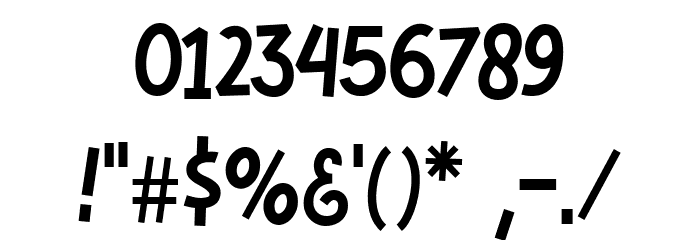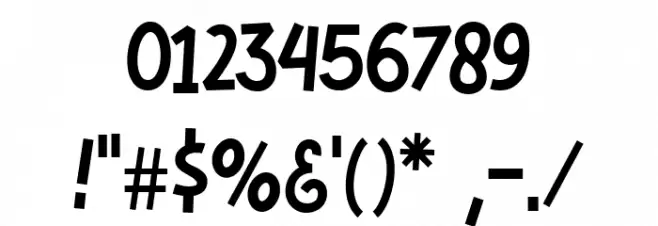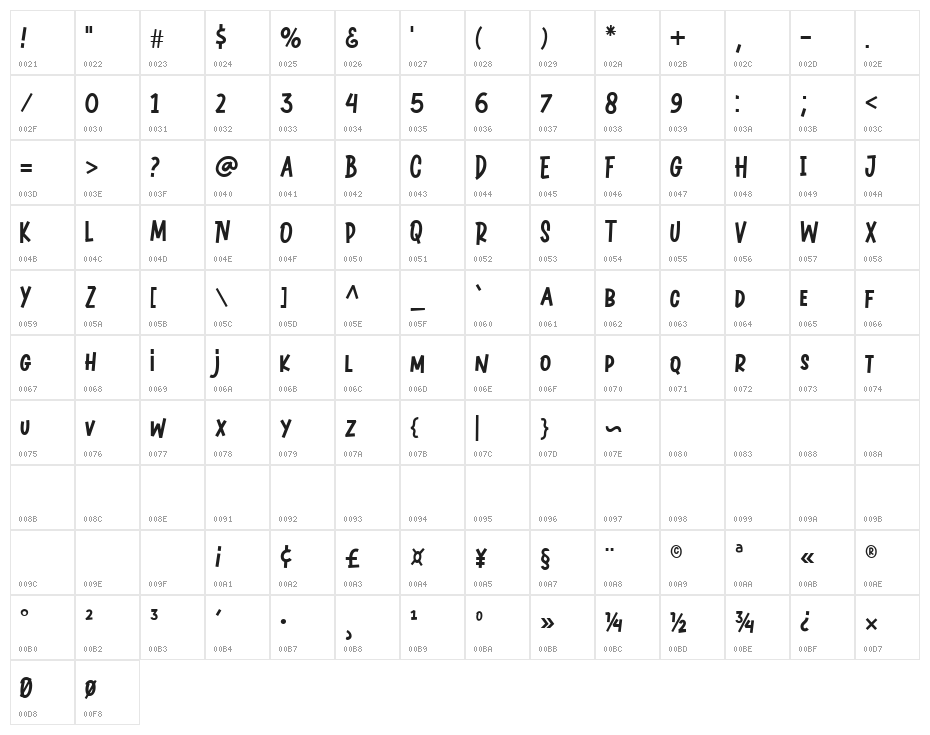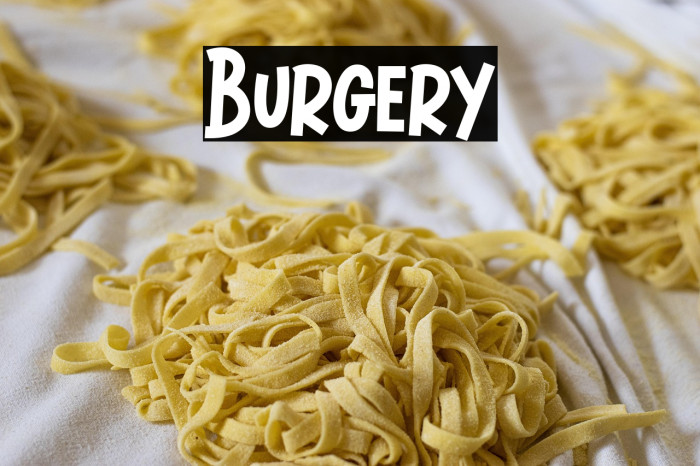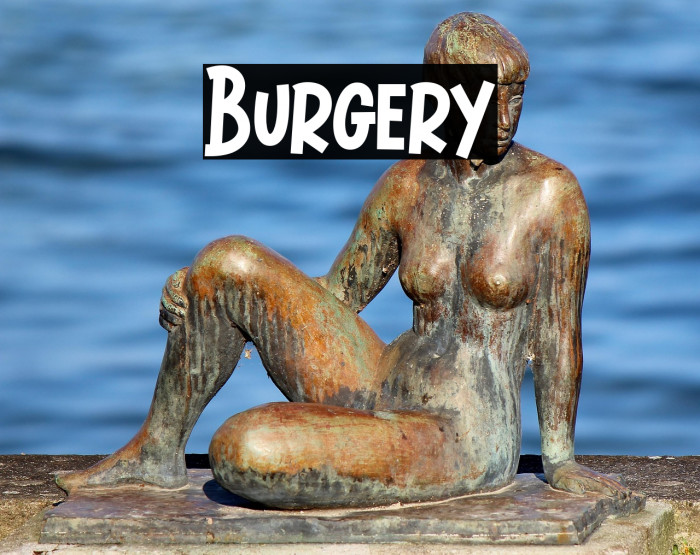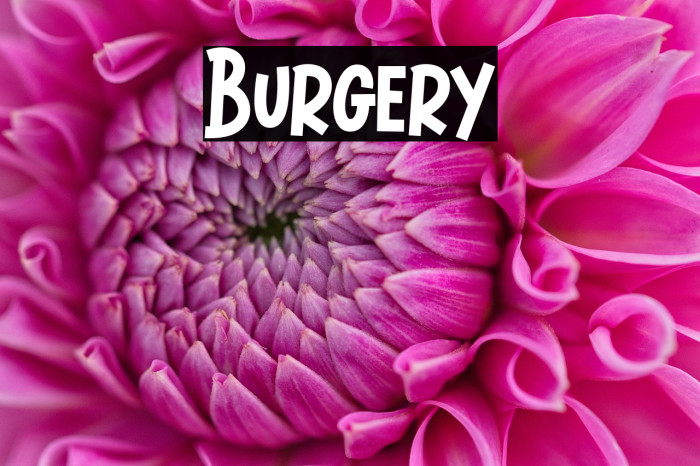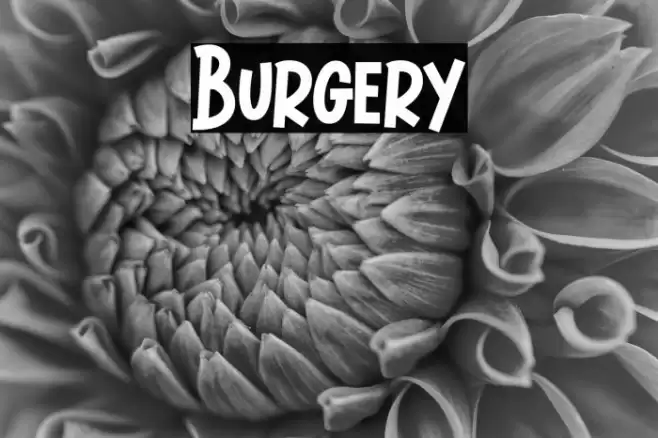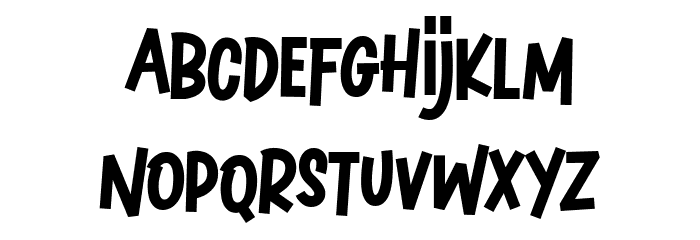
Burgery Font
Burgery Description
This font features a playful and bold style with a slightly irregular and hand-drawn appearance. The characters are thick and have a dynamic, energetic feel, making them stand out with a sense of movement. The uppercase and lowercase letters maintain a consistent weight, contributing to a cohesive look. The numbers and special characters follow the same bold and lively design, ensuring uniformity across all glyphs. The font's overall style is casual yet impactful, suitable for projects that require a fun and approachable aesthetic.
| Overall Style | Playful, Casual |
| Proposed Projects | Ideal for children's books, playful branding, event posters, and casual invitations. |